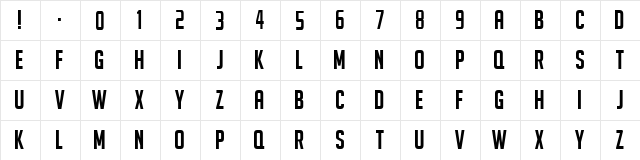
Under Armour Premier Regular
Design Context for Under Armour Premier Typeface
Under Armour Premier offers clean, dependable letterforms without strong stylistic allegiance, making it a practical choice for designers who need flexibility.